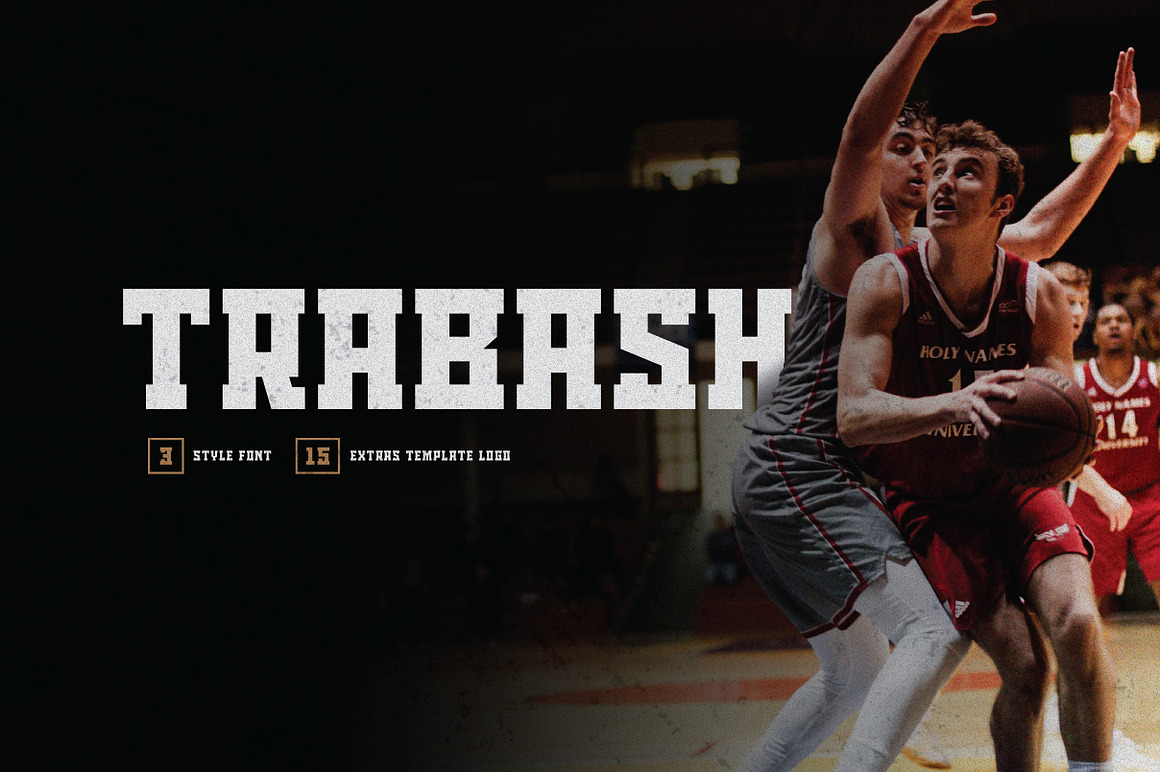
Slab font - Trabash Typeface
Slab Font is perfect for bold newspaper headlines, impactful poster designs, strong corporate branding, industrial signage systems, robust construction materials, powerful advertising campaigns, confident business communications, solid manufacturing labels, authoritative publishing projects, and commanding visual identity systems.
Slab Font is exciting because it perfectly captures the essence of typographic strength and visual authority, creating a slab serif typeface that embodies boldness, reliability, and the commanding presence that defines impactful communication design. This font brings industrial sophistication and structural authority to any project, making it ideal for organizations that want to convey strength, dependability, and the solid confidence that builds trust and commands attention. Its robust character and commanding appeal create an atmosphere of unwavering reliability that resonates with audiences seeking strength and authoritative communication.
Slab Font family includes thin, light, regular, medium, bold, and black weights, each available in roman and italic styles with industrial symbols and structural ornaments, providing designers with comprehensive tools for creating powerful typography and authoritatively strong brand experiences.
This commanding slab serif typeface combines industrial design principles with contemporary functionality, making Slab Font Free Download an outstanding choice for projects requiring both visual impact and structural reliability. The font's powerfully crafted letterforms feature bold slab serifs and commanding proportions that ensure maximum readability and visual authority across all applications from detailed technical documentation to massive environmental graphics.
Whether you're designing industrial brand identity, powerful advertising campaigns, or authoritative publishing materials, Slab Font delivers unmatched structural authenticity and commanding appeal. The font excels in both intimate business applications and large-scale industrial environments where strength and reliability create trustworthy professional relationships.
Industrial professionals choose Slab Font for its ability to instantly communicate strength and reliability while maintaining excellent readability across demanding industrial and commercial applications. The font's commanding character makes it particularly effective for construction companies, manufacturing firms, and authoritative business communications.
Each character reflects the solid strength of industrial construction, featuring robust slab serifs and commanding proportions that create typography as dependable and powerful as steel beams, concrete foundations, and the most solid achievements in industrial engineering.